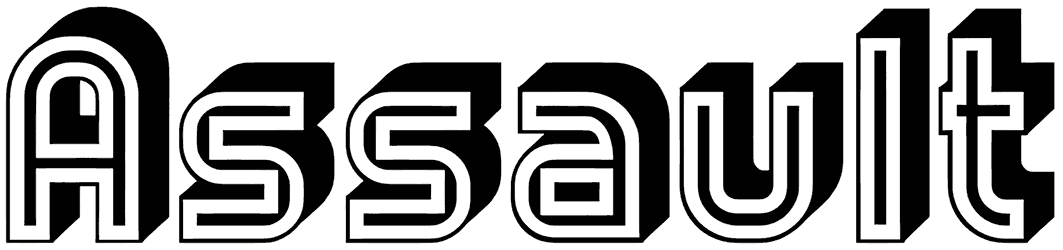
Assault Font
Do you want to implement a design that can be recognized even from a distance and attract attention? So, take a look at Assault. This retro font with 3D shadows is an adorable font that can multiply its appeal as soon as it is added to any design.
The futuristic appearance of this outline font makes it look good in technology-oriented designs and is a defensible choice for advertising projects.